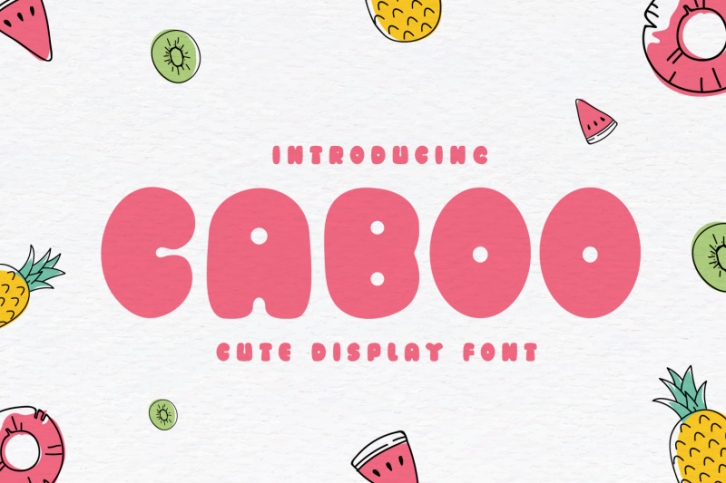
Caboo - Cute Display Font Download
Caboo - Cute Display Font
Caboo is a cute and quirky display font that fits perfectly into anything. Its casual charm makes it look very down to earth, easy to read and, in the end, very versatile. Caboo will look amazing in any context, whether used in a busy background or as a standalone headline!